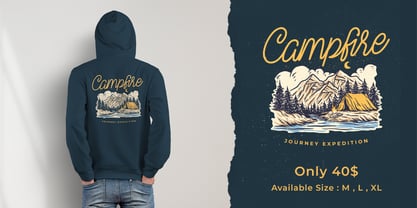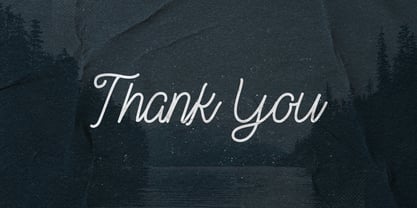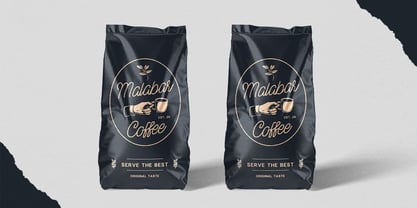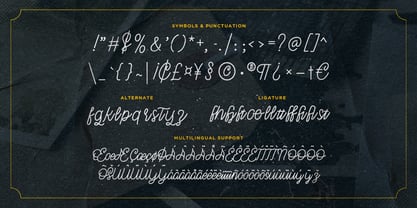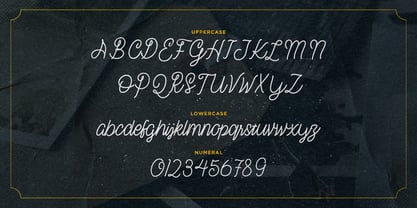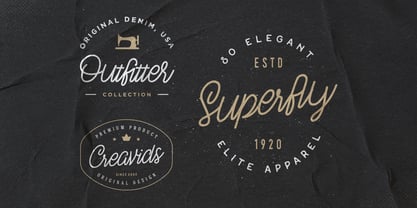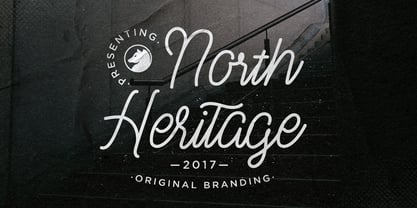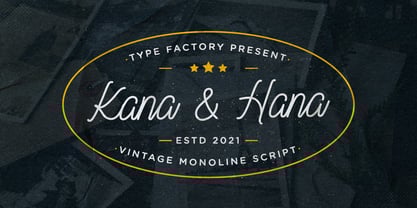
Kana And Hana
by Typefactory
The Kana And Hana Font Family was designed by Hilmius Akbar and published by Typefactory. Kana And Hana contains 1 styles. More about this family
Kana & Hana is a monoline script typeface with smooth characters and an vintage look.
Kana & Hana is suitable for logos, signatures, taglines, handwritten quotes, product packaging, posters, and much more!
Features:
- Uppercase
- Lowercase
- Symbols & Punctuation
- Numeral
- Ligature
- Alternate
- Multilingual Support
Designers: Hilmius Akbar
Foundry: Typefactory